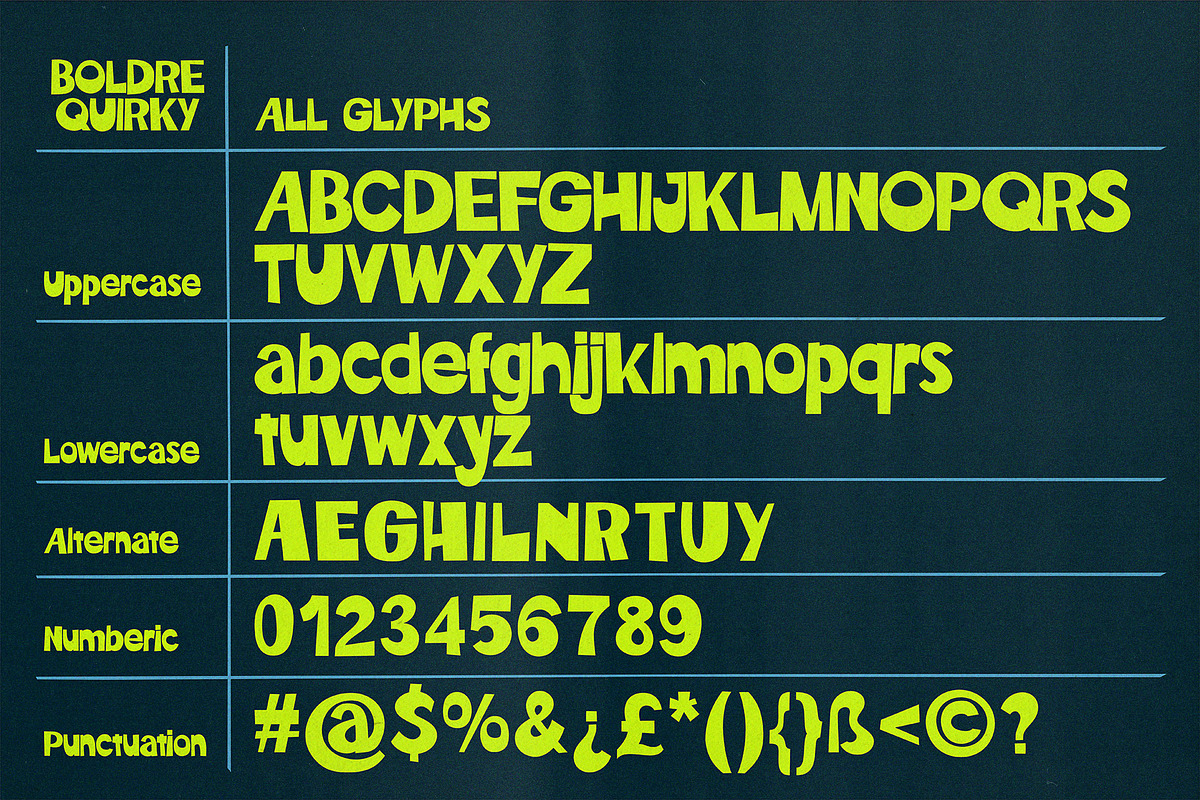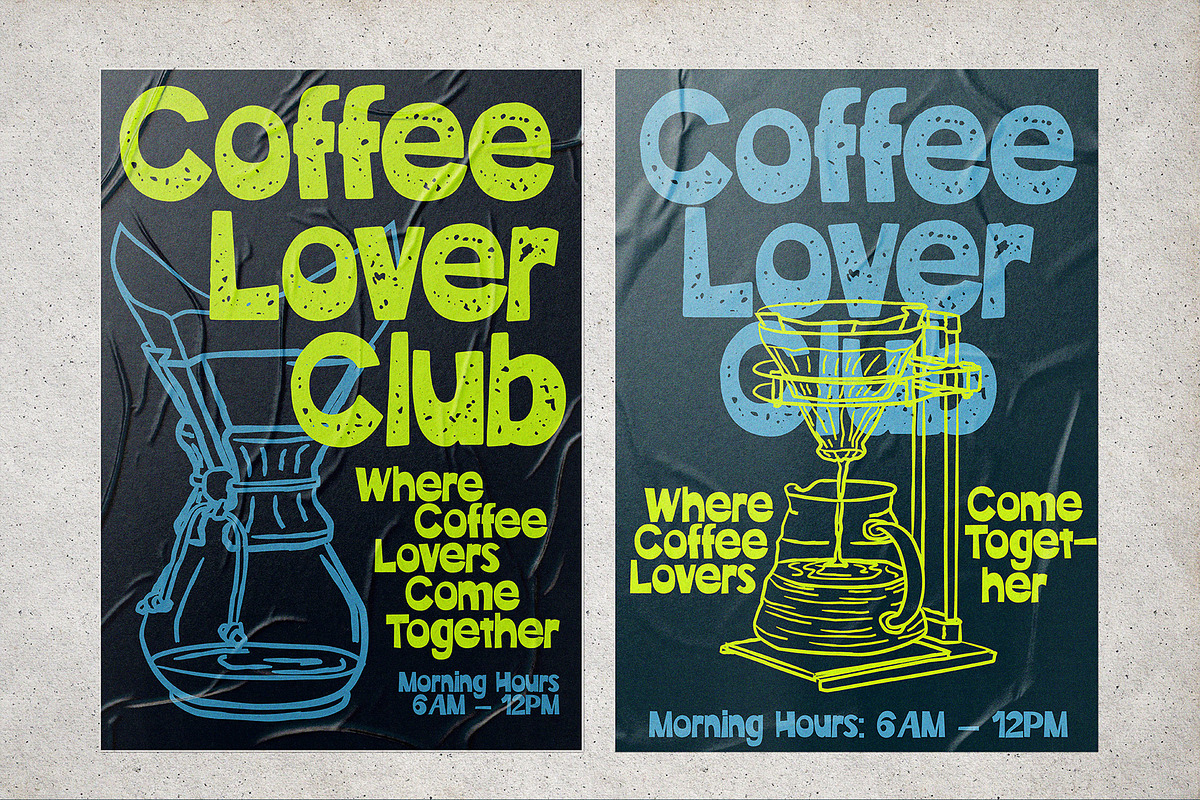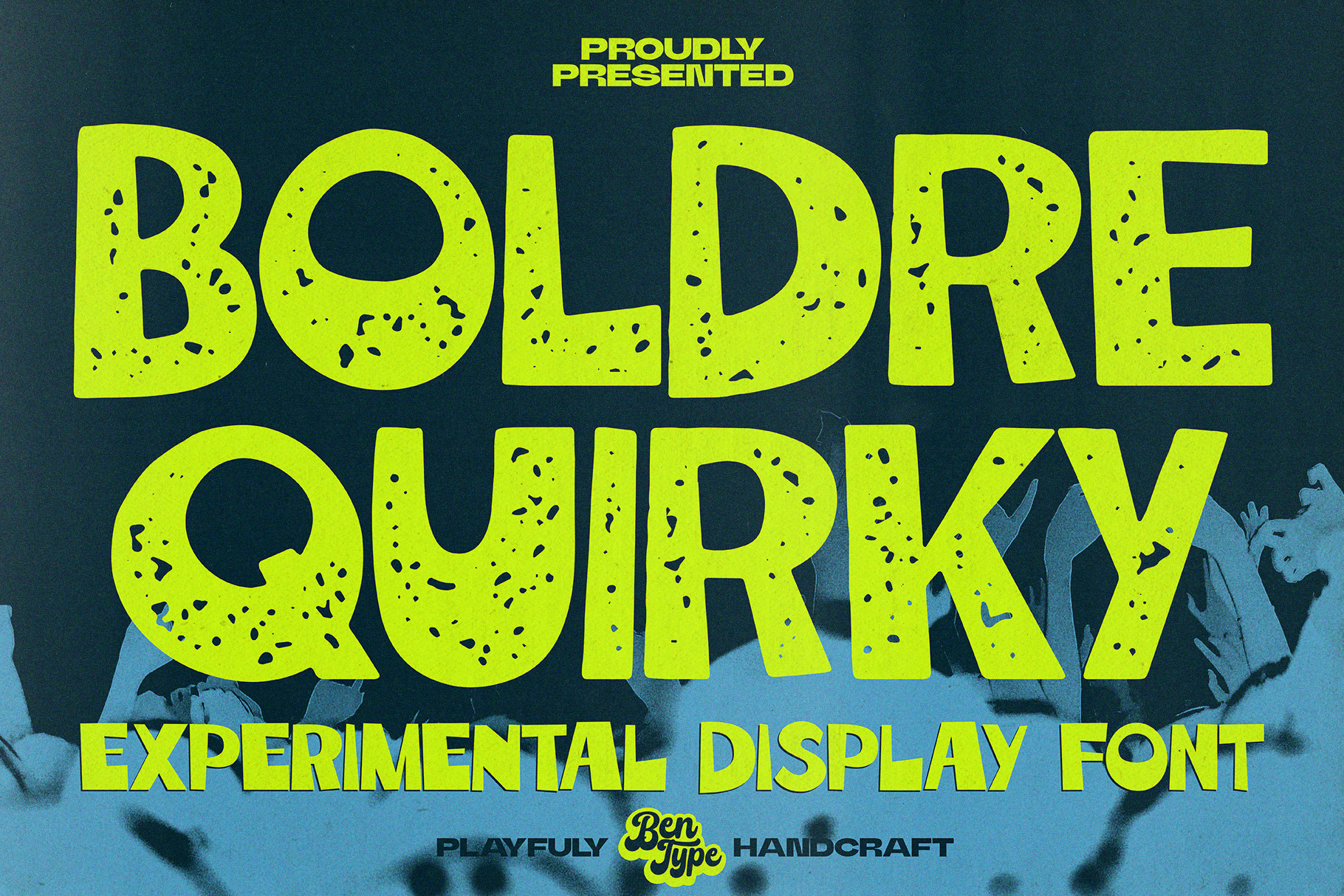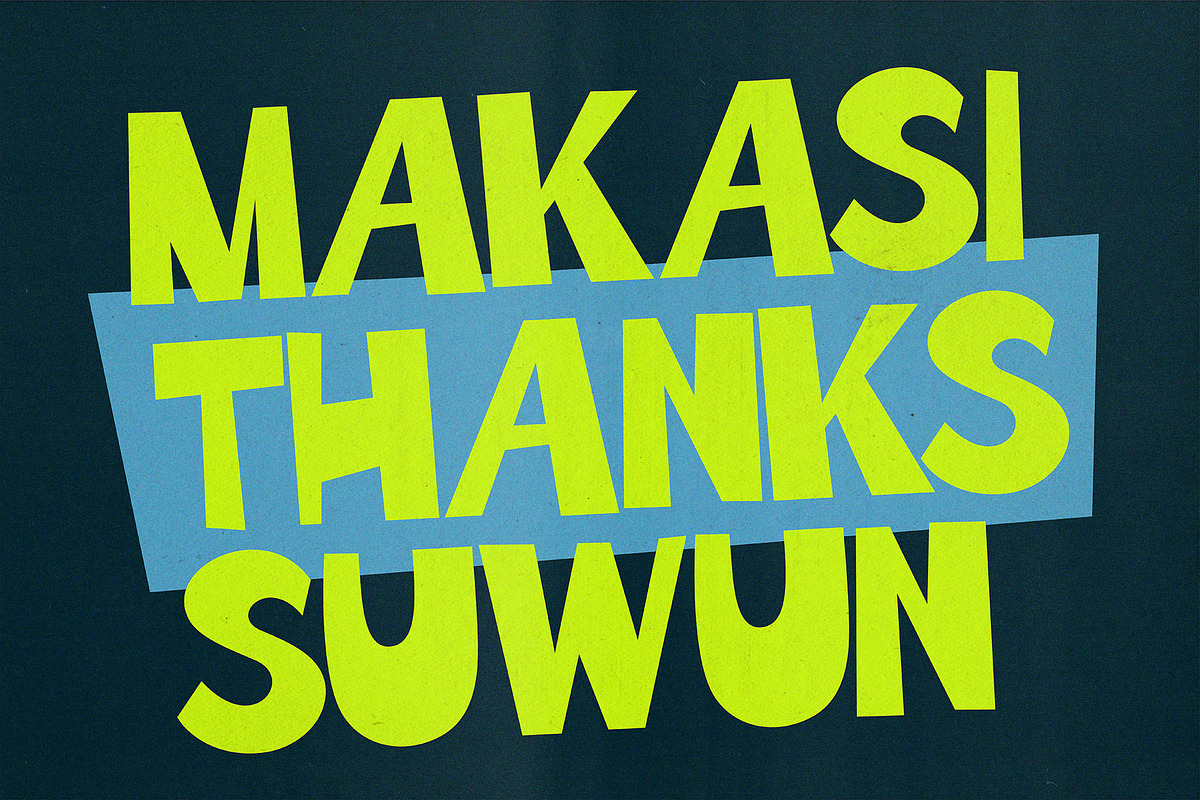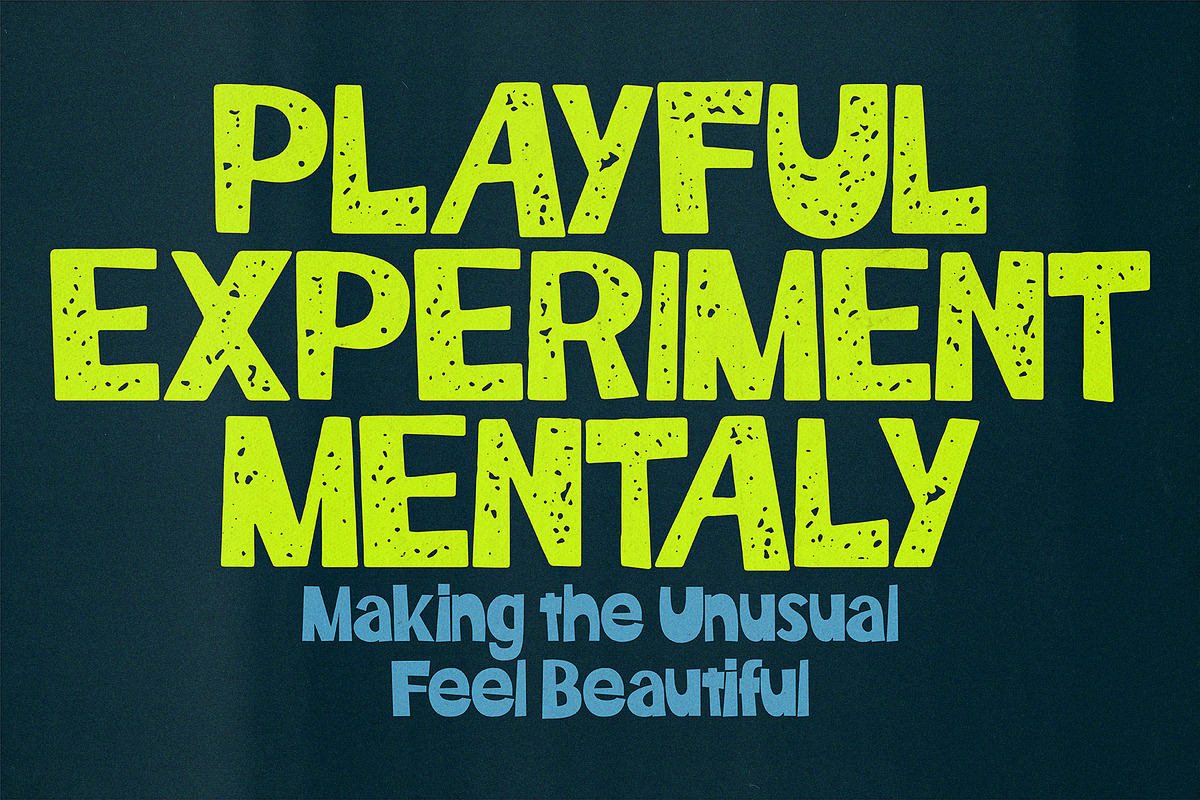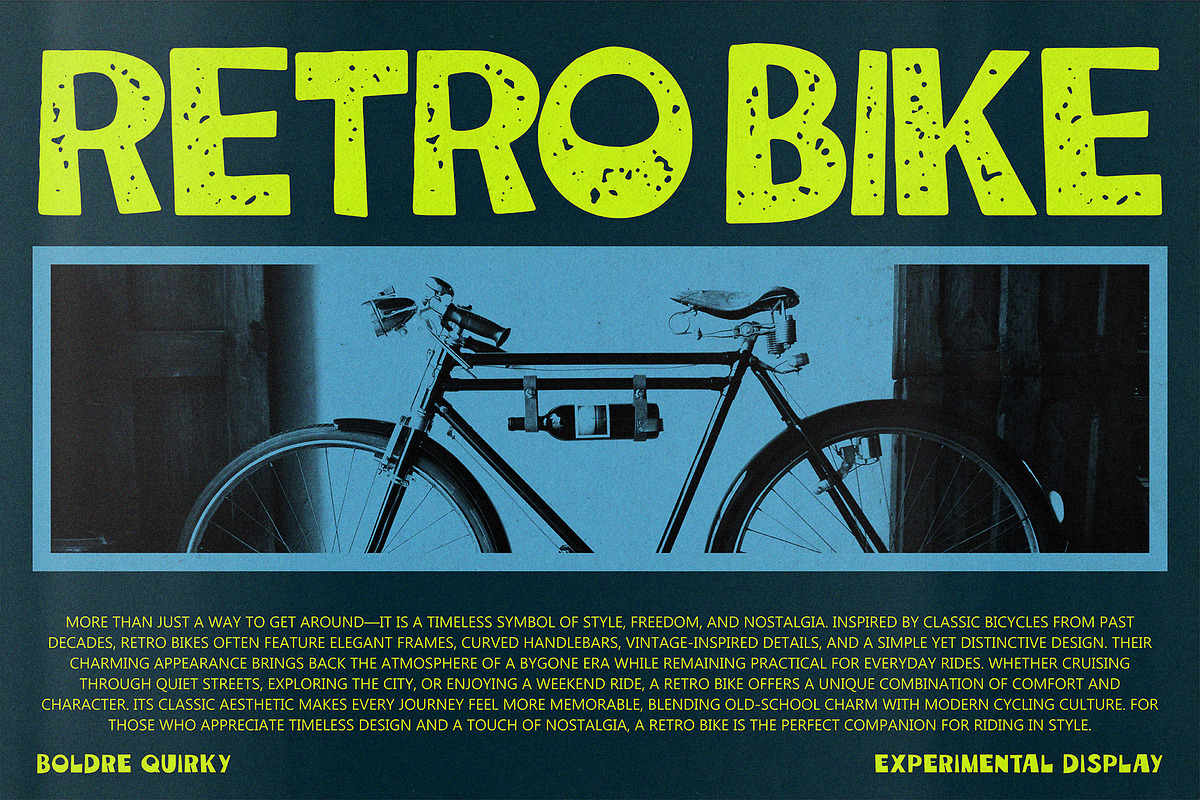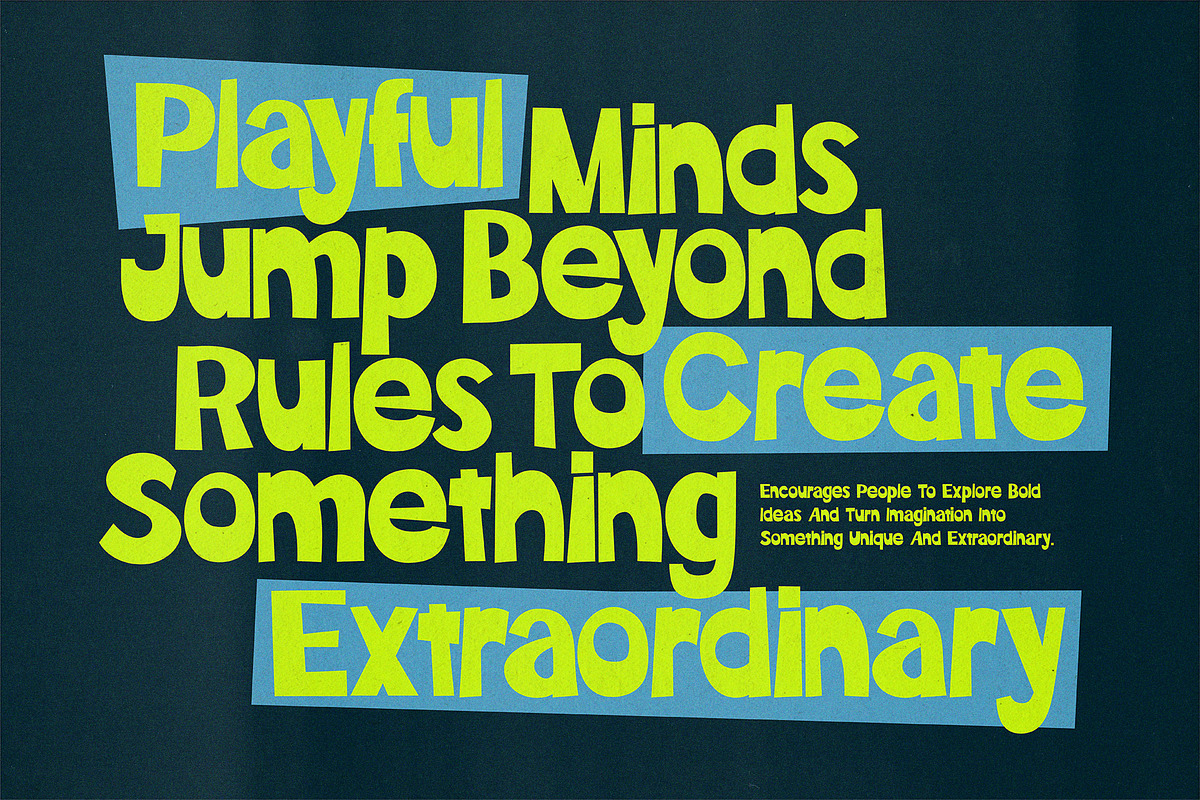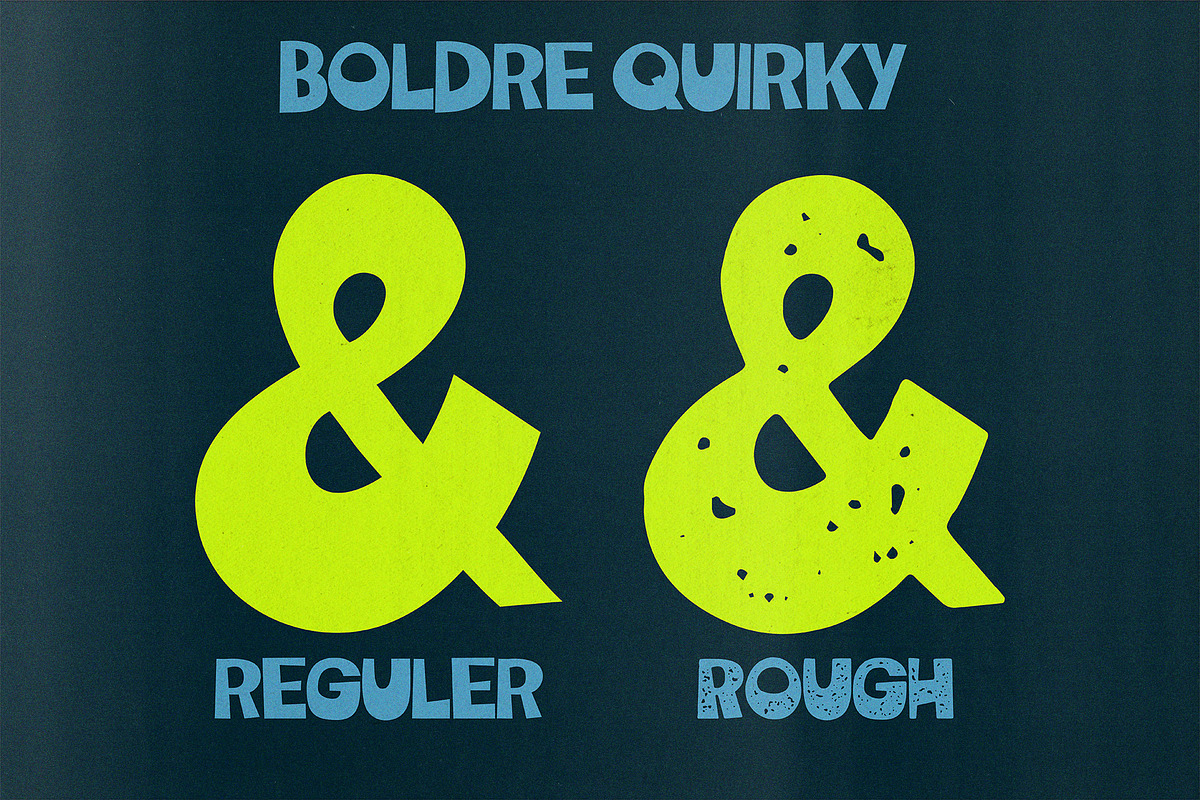
Boldre Quirky - Display Font
Boldre Quirky is a bold and playful display font designed to bring a fun, experimental personality to your typography. Featuring chunky forms, quirky proportions, unexpected details, and distinctive alternate glyphs, it creates a dynamic look that instantly grabs attention.
Perfect for posters, branding, packaging, social media graphics, headlines, stickers, album artwork, and creative editorial designs, Boldre Quirky works especially well when you want your design to feel energetic, unconventional, and full of character. Its expressive style makes every word stand out with a bold dose of creativity.
Reguler & Rough Style
Upper Case & Lower Case